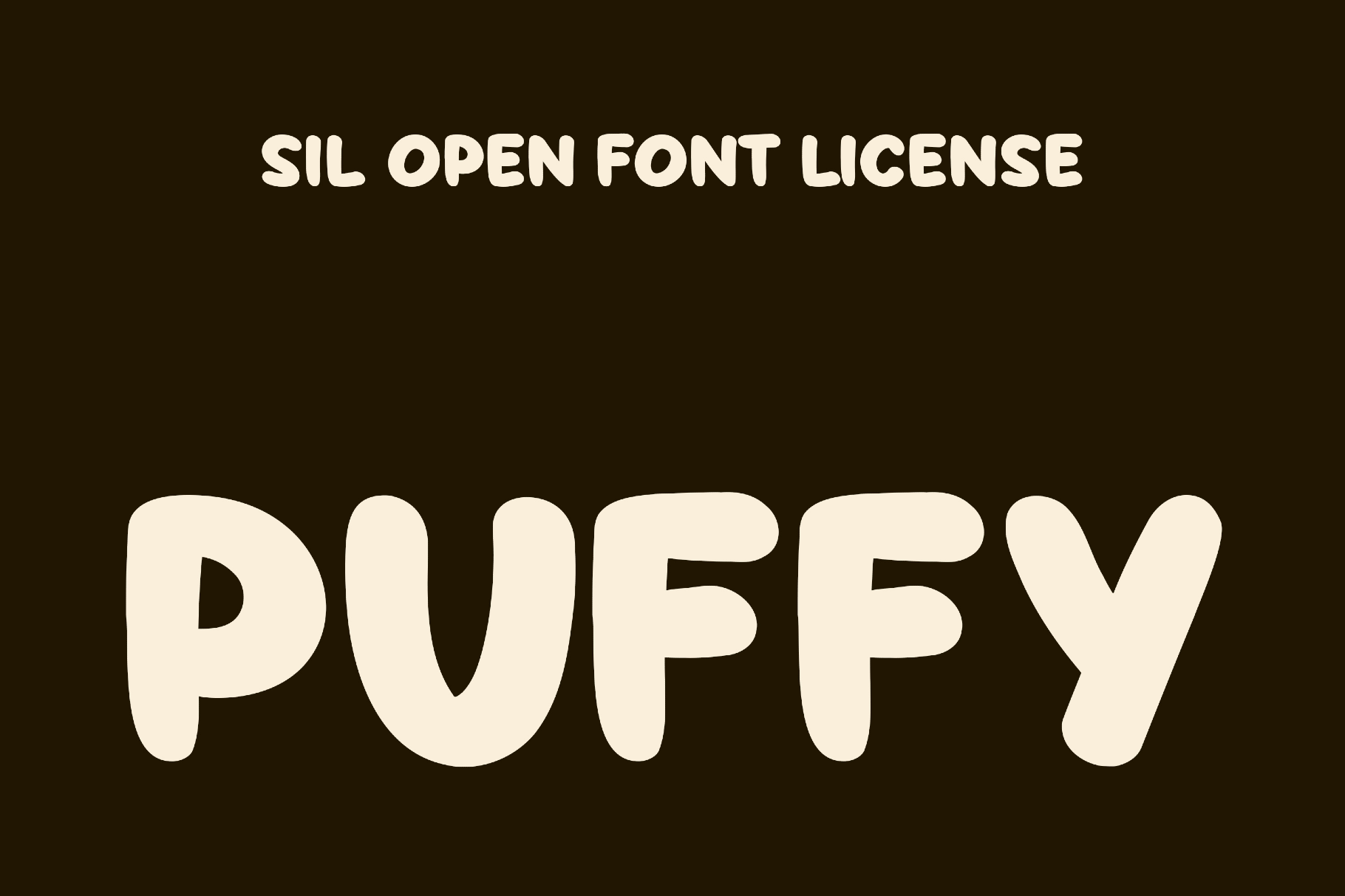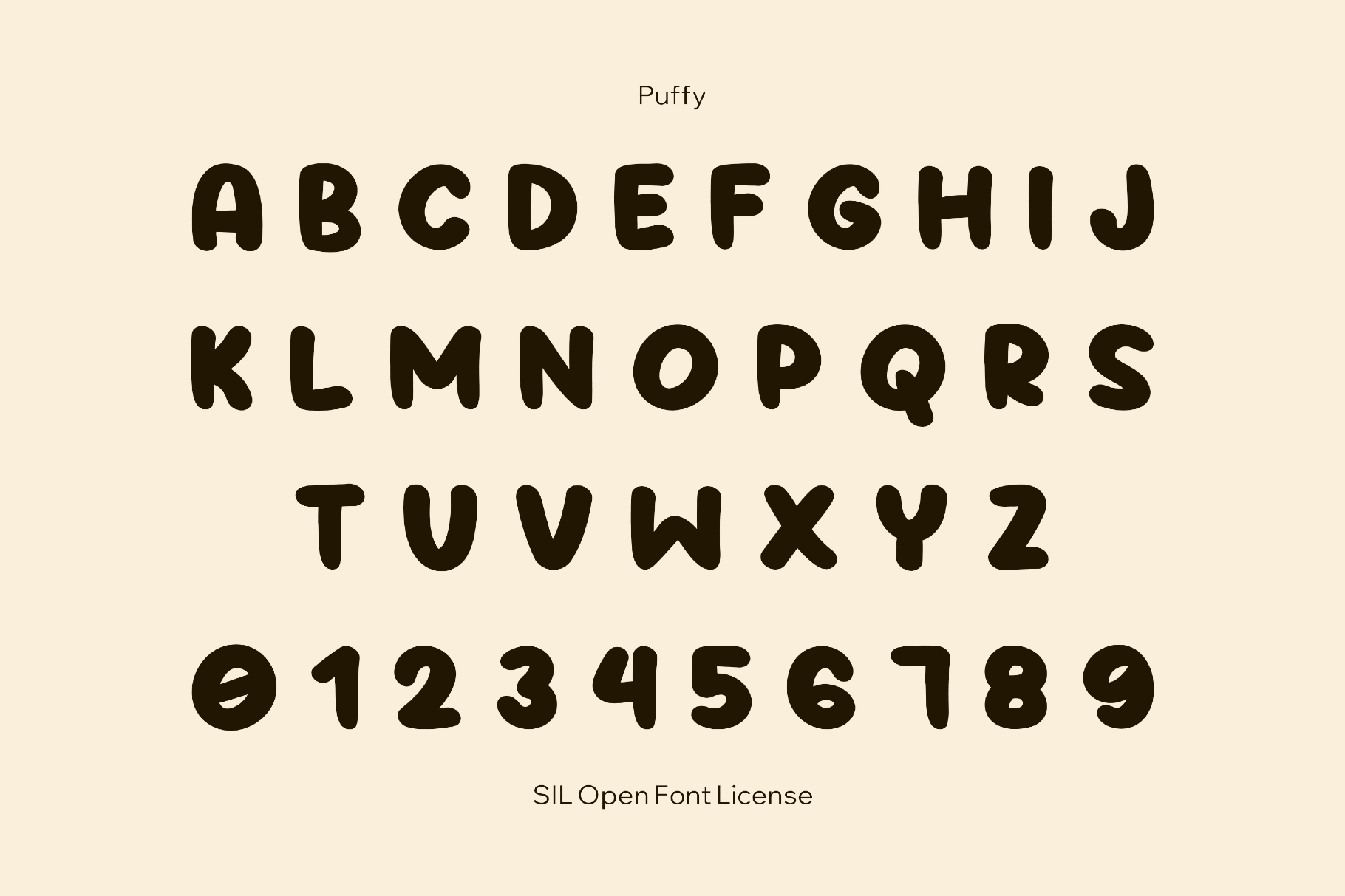
Puffy
This bouncy, inflated display face with soft cartoon contours recalls Y2K toy branding and candy-pack typography. The lively uppercase characters with rounded edges and loose curves fall somewhere between graffiti and poster art. It suits well kids’ products, playful logos, snack and drink packaging, posters, stickers, bold wordmarks, event flyers, social media headlines, and photo overlays.
- Uppercase Latin letters.
- International characters with multilingual support across Latin-based languages.